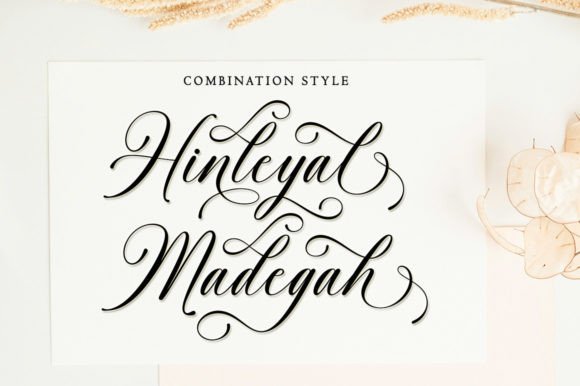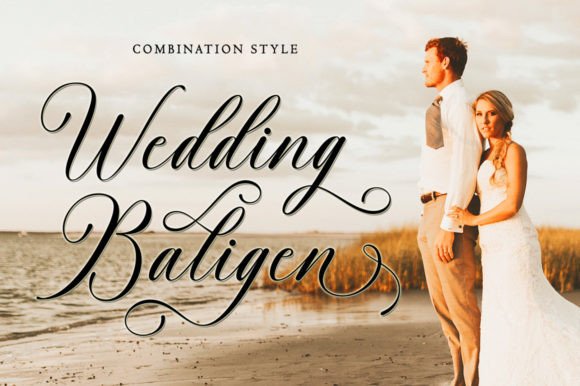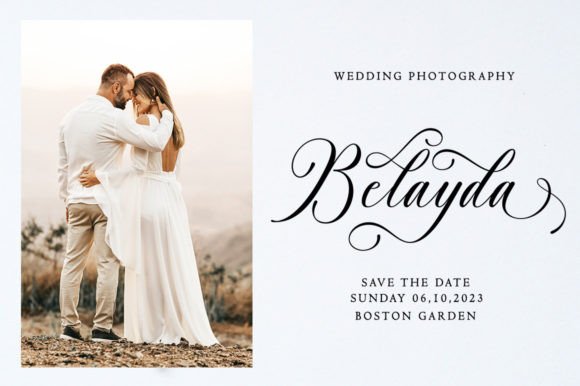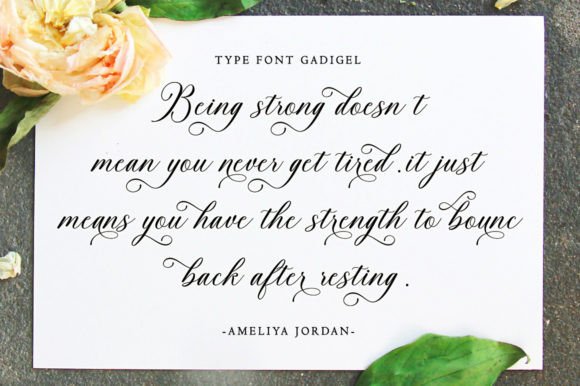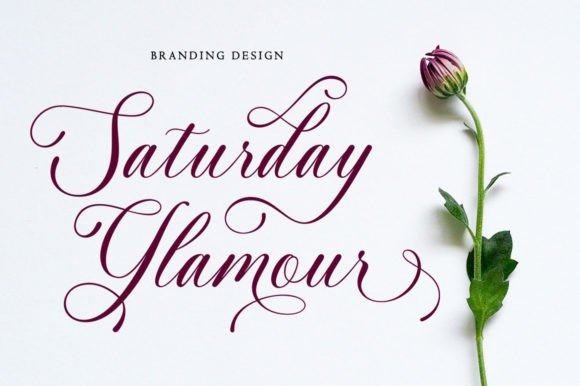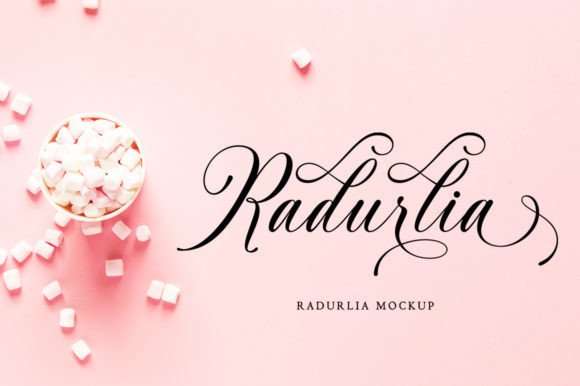
Gadigel Font: The Perfect Script for Romantic Designs
Are you a designer or crafter looking for a beautiful script font to elevate your projects? Look no further than Gadigel Font! This stunning script is perfect for branding, wedding invitations, and other romantic projects that require a touch of elegance and sophistication.
What Makes Gadigel Font Special?
Gadigel Font is a unique and stylish script that boasts a distinctive look, making it perfect for a wide range of design projects. Its beautiful, flowing lines and curves give it a romantic and feminine touch, making it ideal for wedding-related designs, such as invitations, save-the-date cards, and ceremony programs.
But Gadigel Font is not just limited to wedding designs. Its versatility and style make it perfect for use in various other design projects, including:
- Logos: Create a stunning logo for your business or brand with Gadigel Font.
- Labels: Design beautiful labels for your products or packaging with this elegant script.
- Packaging designs: Add a touch of sophistication to your product packaging with Gadigel Font.
- Blog titles: Use Gadigel Font to create eye-catching blog titles that grab attention.
- Posters: Design stunning posters for events, promotions, or advertisements with this beautiful script.
- Social media posts: Elevate your social media posts with Gadigel Font and make them stand out.
- Instagram designs: Create beautiful Instagram posts and stories with Gadigel Font.
Why Choose Gadigel Font?
There are many reasons why designers and crafters love Gadigel Font. Here are a few:
- Unique style: Gadigel Font has a distinctive look that sets it apart from other script fonts.
- Elegant and sophisticated: This font exudes elegance and sophistication, making it perfect for high-end designs.
- Versatile: Gadigel Font can be used in a wide range of design projects, from logos to social media posts.
- Easy to read: Despite its elegant style, Gadigel Font is easy to read, making it perfect for body text and captions.
Tips for Using Gadigel Font
Here are some tips for getting the most out of Gadigel Font:
- Use it sparingly: While Gadigel Font is beautiful, it can be overwhelming if used excessively. Use it sparingly to create a focal point in your design.
- Pair it with a sans-serif font: Pairing Gadigel Font with a sans-serif font can create a beautiful contrast and add visual interest to your design.
- Experiment with colors: Gadigel Font looks stunning in a variety of colors, from metallic gold and silver to soft pastels.
Gadigel Font is a beautiful script font that is perfect for designers and crafters looking to add a touch of elegance and sophistication to their projects. Its unique style, versatility, and ease of use make it a popular choice for a wide range of design projects, from branding and wedding invitations to social media posts and packaging designs.
Whether you’re a professional designer or a crafter, Gadigel Font is a great addition to your font library. So why not give it a try and see how it can elevate your designs?